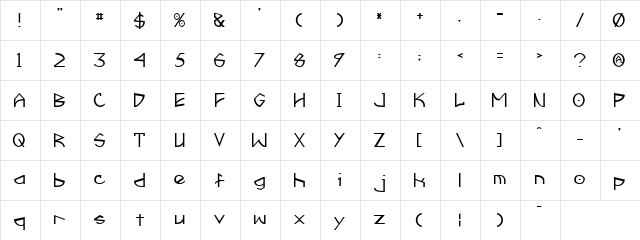
Predacon Beasts Regular
Predacon Beasts is a composed and adaptable typeface that performs quietly and consistently across a wide range of design contexts.